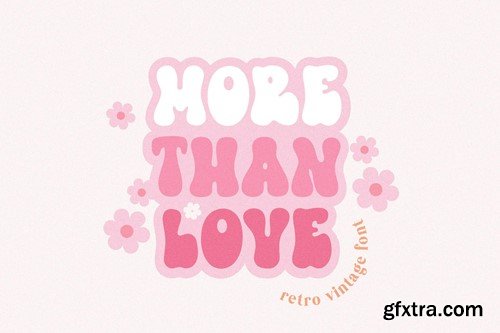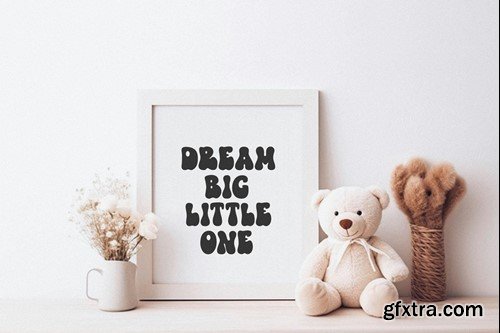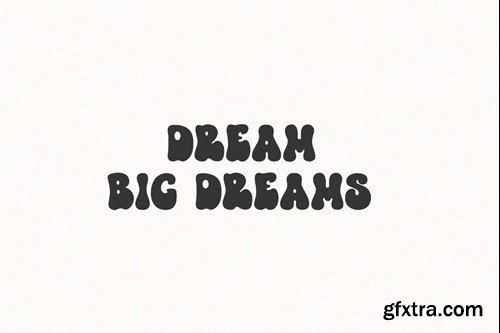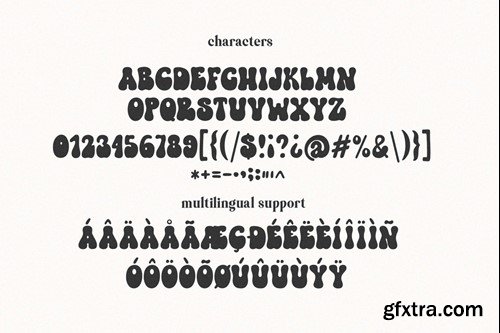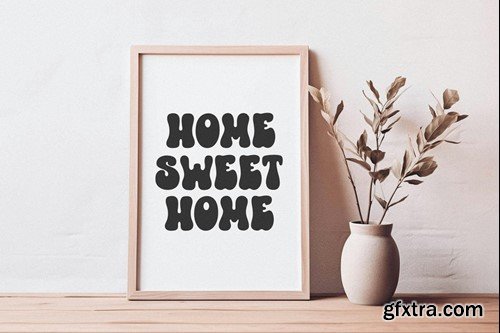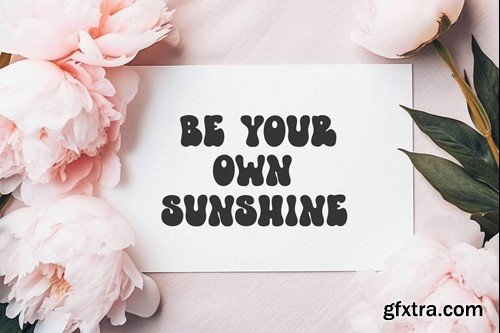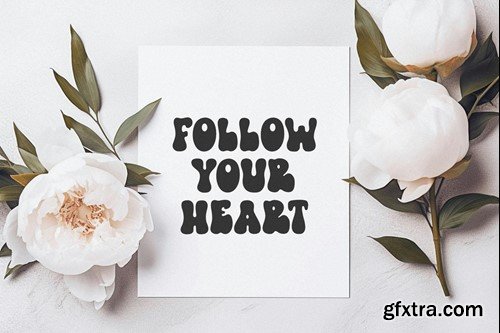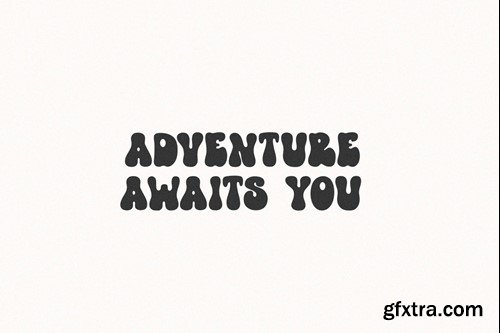
More Than Love Retro Vintage Font
More Than Love a retro vintage font. Perfect to create stickers, quotes, prints, cricut projects, sublimation designs and svg files.
• More Than Love Font
• Punctuation
• Numbers
• Multilingual support